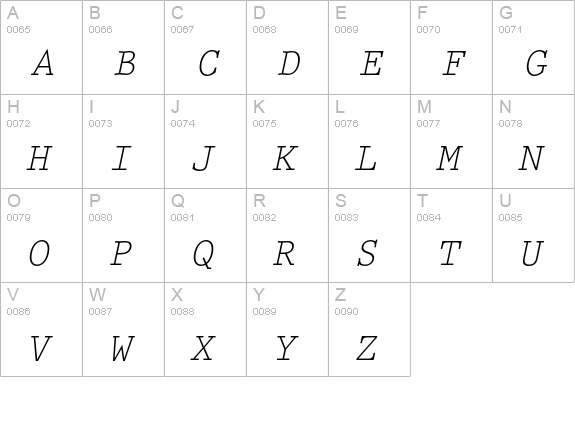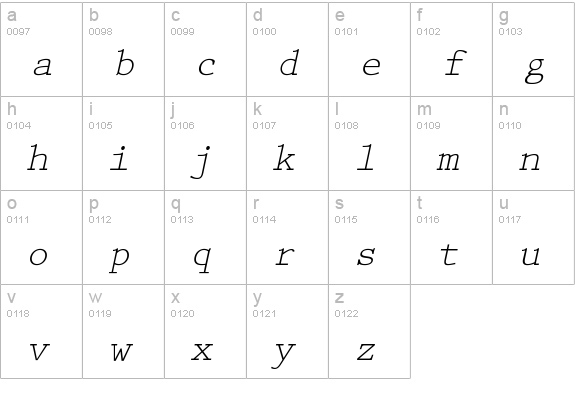
Prestige Elite Slanted Font Details
Prestige Elite Slanted font is a sleek and sophisticated typeface that exudes elegance and modernity. Its stylish slanted design adds a touch of flair to any project, making it perfect for high-end branding, editorial design, and more. This font strikes the perfect balance between professionalism and creativity, making it versatile and suitable for a wide range of design applications. The best part? Prestige Elite Slanted font is available for free download at FontsMarket.com. Now you can elevate your designs without breaking the bank, thanks to this premium font that doesn't come with a premium price tag. Whether you're a seasoned designer looking to add a fresh look to your portfolio or a budding creative looking to make a statement, Prestige Elite Slanted font is the perfect choice. Download it today and unlock endless design possibilities at your fingertips.